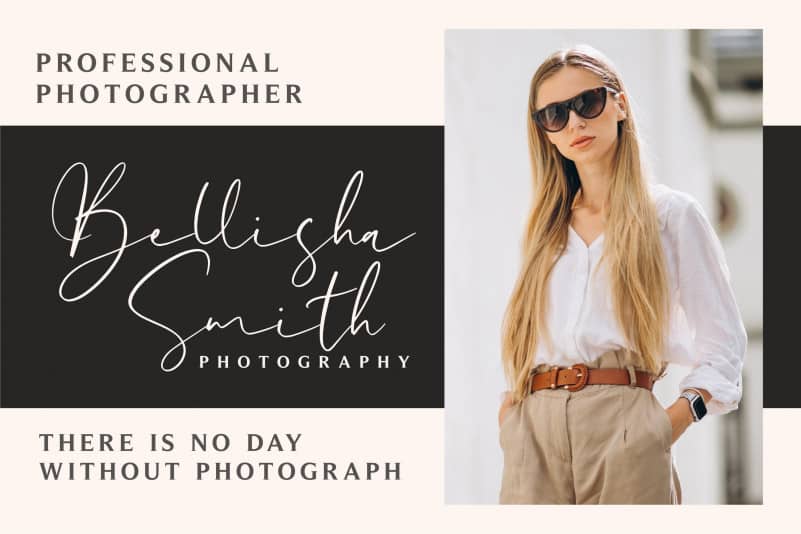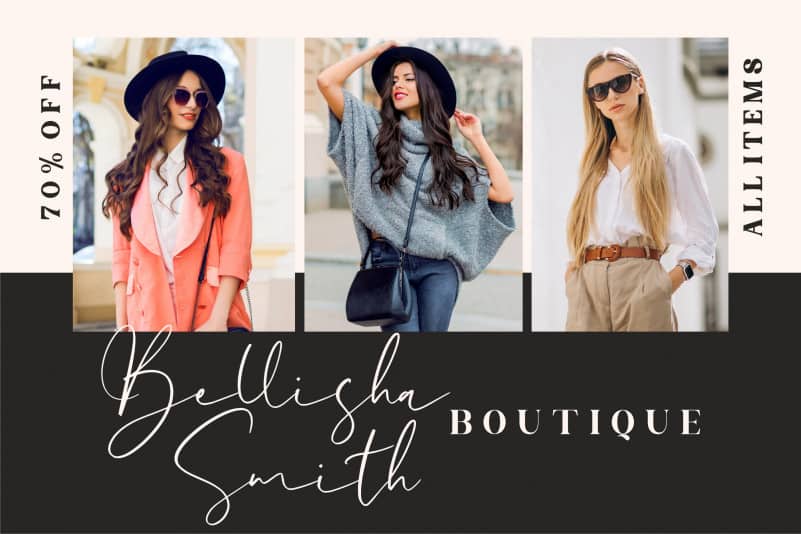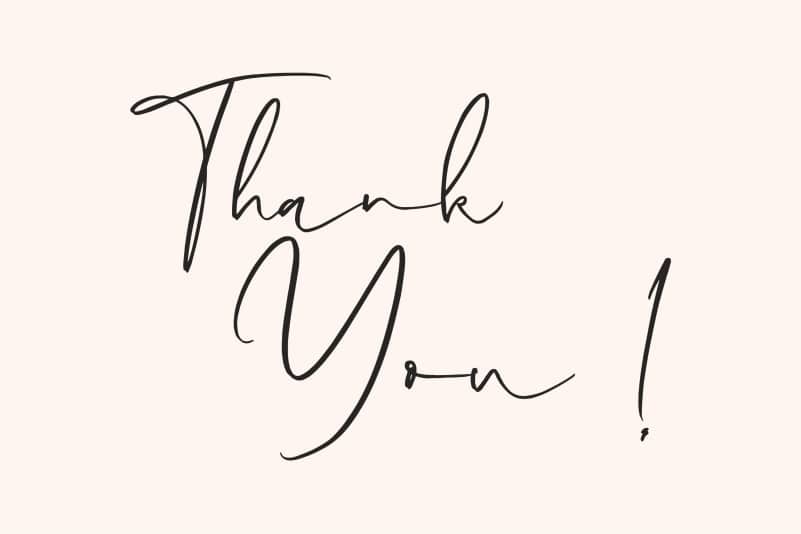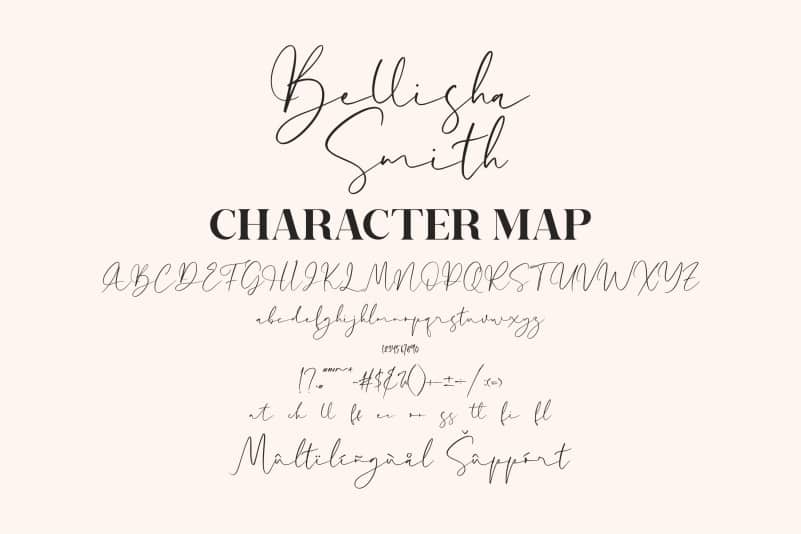
Bellisha Smith Script Font
Bellisha Smith Script Font, from Letterena, is a romantic calligraphy font, suitable for any projects such as: logos, branding projects, homeware designs, product packaging, mugs, quotes, posters, shopping bags, t-shirts, book covers, name card, invitation cards, greeting cards, label, photography, watermark, special events, and all your other luxury projects that need a script Signature taste.